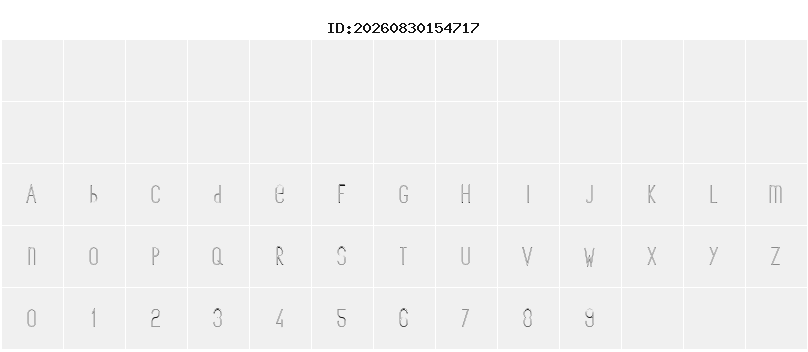
• Font Name: The Copenhagener Outline
• Full Font Name: The Copenhagener Outline
• Designer: Marco Claudio Trecca
• Manufacturer: Marco Claudio Trecca
About The Copenhagener Outline.ttf
The Copenhagener Outline.ttf is a modern, elegant sans-serif font designed for ultimate readability and visual harmony. Perfect for branding, headlines, web design, and print materials.